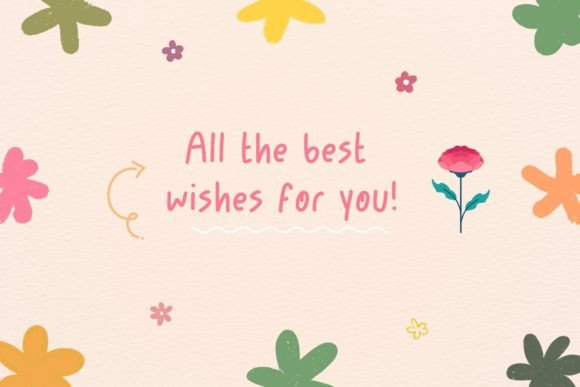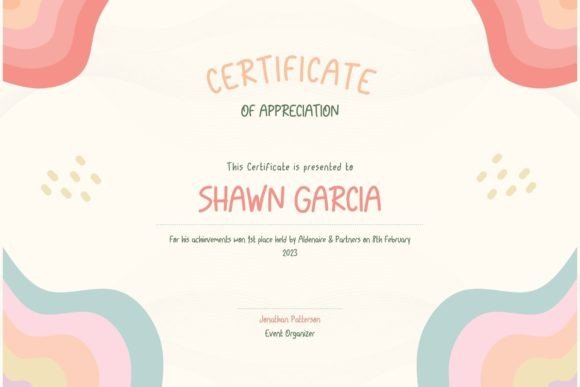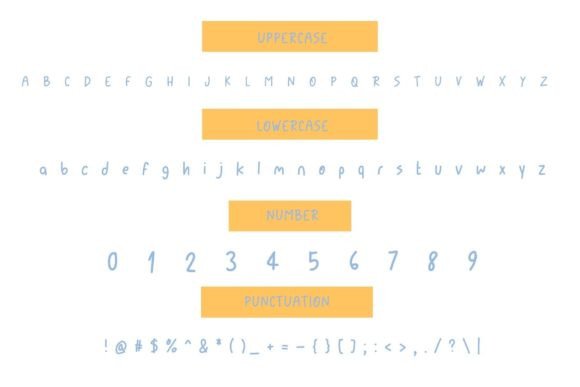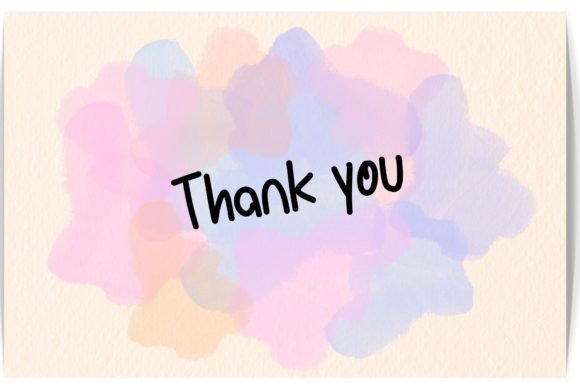
Introducing Family Font: The Perfect Handwritten Font for Your Favorite Projects
Are you looking for a font that embodies playfulness and authenticity? Look no further than Family Font, a cute handwritten font that’s perfect for a wide range of projects. From blog posts and logos to branding, ads, invitations, greeting cards, planners, photo albums, decorations, and more, Family Font is the ideal choice for designers and crafters who want to add a personal touch to their designs.
The Characteristics of Family Font
Family Font is a unique and charming handwritten font that’s designed to bring a sense of warmth and personality to your designs. Its playful and authentic feel makes it perfect for projects that require a personal touch. The font features:
• Playful and whimsical feel: Family Font has a carefree and spontaneous feel that’s perfect for designs that require a playful touch.
• Authentic and genuine look: The font’s handwritten nature gives it an authentic and genuine look that’s perfect for designs that require a personal touch.
• High legibility: Family Font is designed to be highly legible, making it perfect for use in a wide range of projects, from body text to headings.
Uses for Family Font
Family Font is a versatile font that can be used in a wide range of projects, including:
• Blog posts: Add a personal touch to your blog posts with Family Font, perfect for headings, subheadings, and body text.
• Logos and branding: Use Family Font to create a unique and memorable logo or brand identity that’s playful, yet professional.
• Ads and marketing materials: Family Font is perfect for ads, flyers, brochures, and other marketing materials that require a playful and attention-grabbing font.
• Invitations and greeting cards: Add a personal touch to your invitations and greeting cards with Family Font, perfect for special occasions and events.
• Planners and journals: Use Family Font to create a unique and functional planner or journal that’s both stylish and practical.
• Photo albums and scrapbooking: Family Font is perfect for photo albums and scrapbooking projects, adding a personal touch to your memories.
• Decorations and crafts: Use Family Font to add a personal touch to your decorations and crafts, from DIY projects to party decorations.
Why Choose Family Font?
There are many reasons why Family Font is the perfect choice for your favorite projects. Here are just a few:
• Unique and distinctive: Family Font is a one-of-a-kind font that’s sure to make your designs stand out.
• Easy to use: Family Font is designed to be easy to use, with a simple and intuitive design that’s perfect for designers of all levels.
• High-quality design: Family Font is designed to high-quality standards, ensuring that your designs look professional and polished.
• Versatile: Family Font can be used in a wide range of projects, from digital designs to print materials.
Family Font is a charming and versatile handwritten font that’s perfect for designers and crafters who want to add a personal touch to their designs. With its playful and authentic feel, high legibility, and wide range of uses, Family Font is the ideal choice for all your favorite projects. So why wait? Add Family Font to your designs today and enjoy the results!
Whether you’re a professional designer or a crafter, Family Font is the perfect choice for anyone who wants to add a personal touch to their designs. So go ahead, get creative, and see what amazing designs you can create with Family Font!